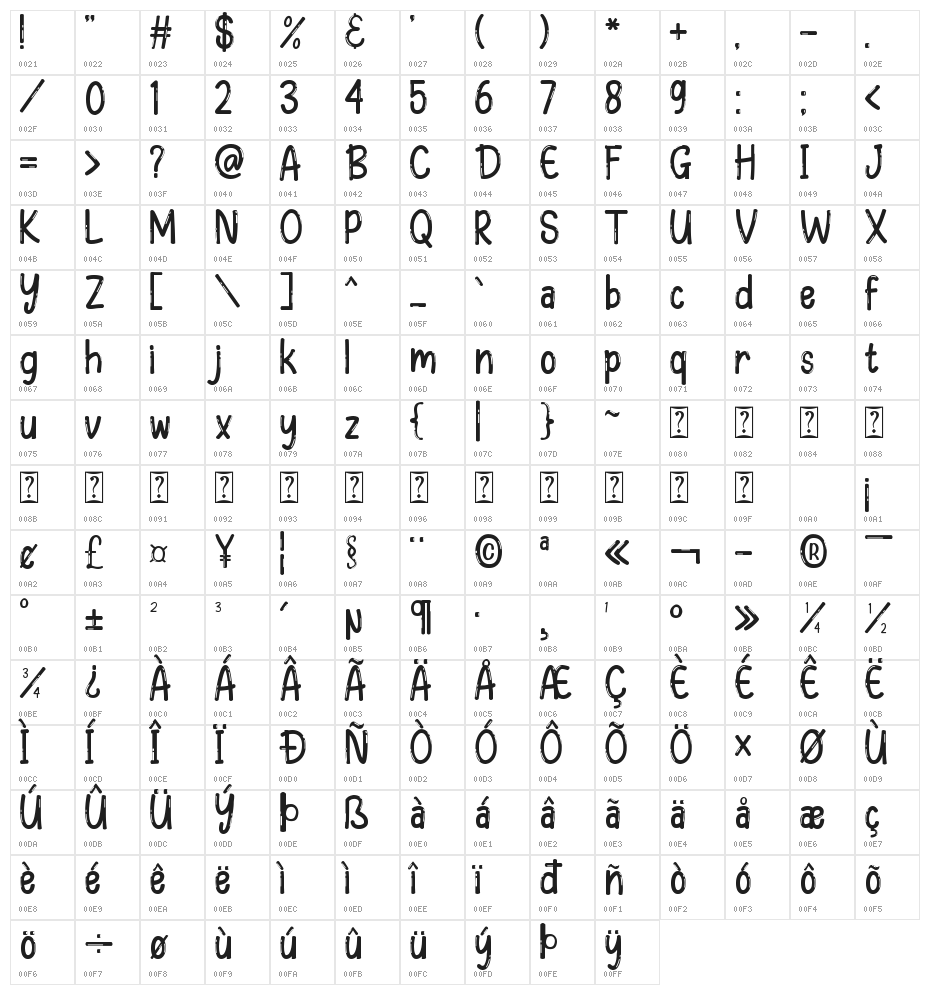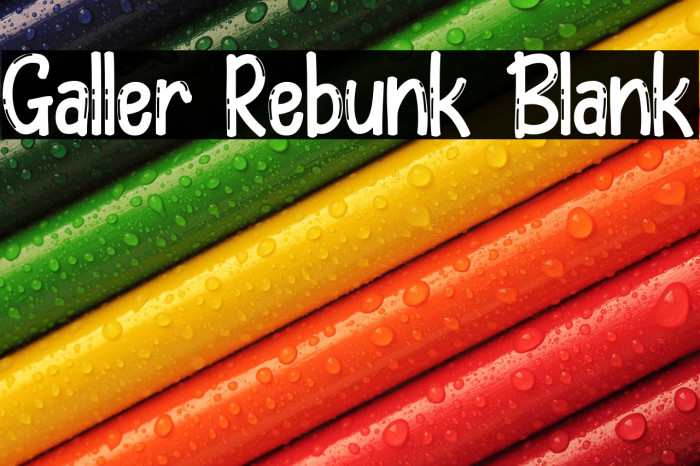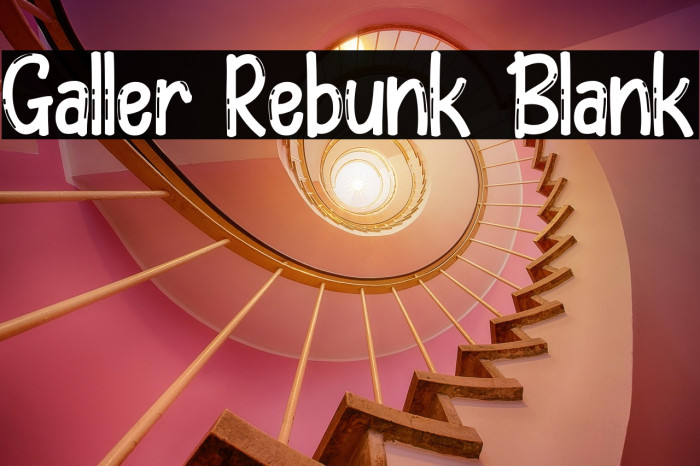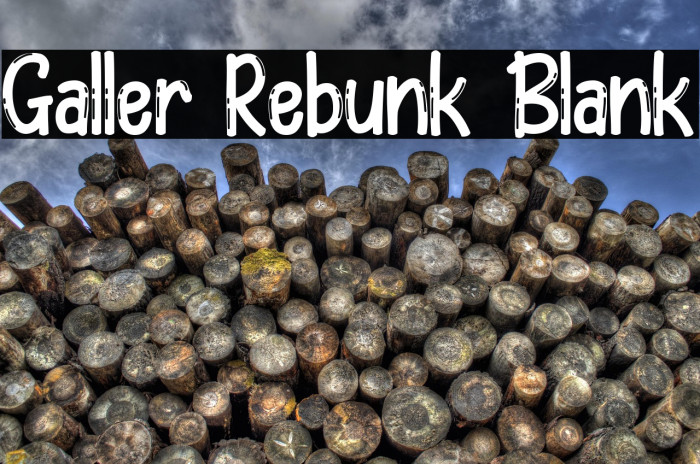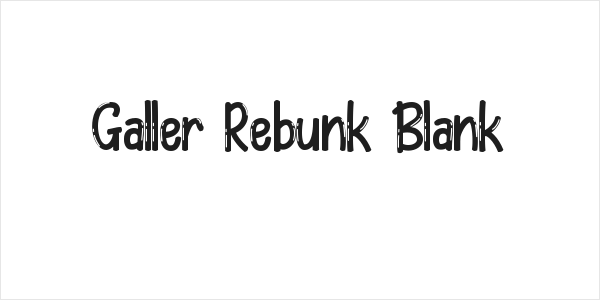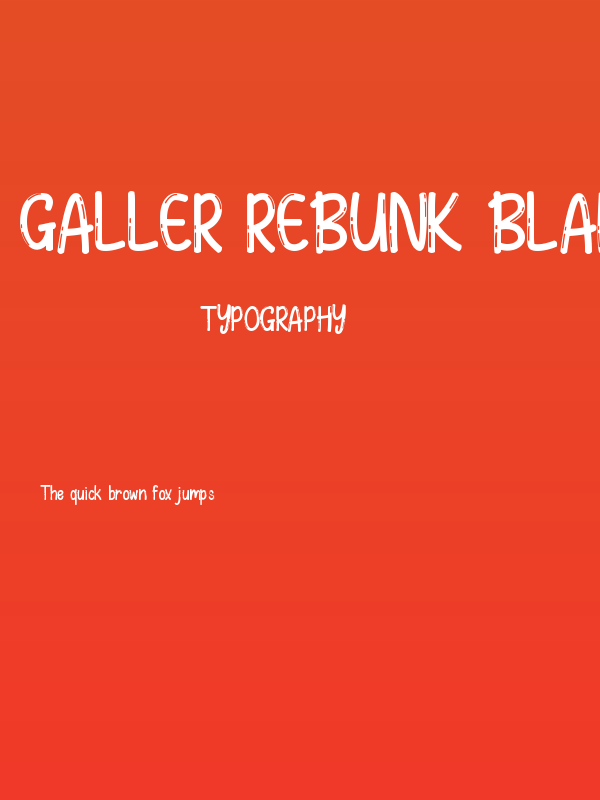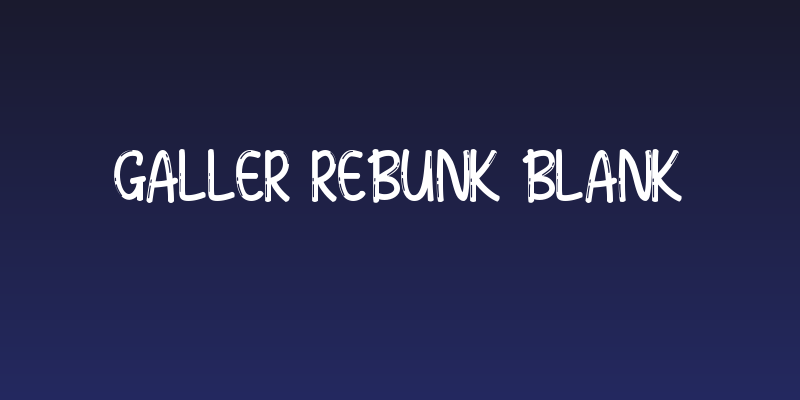
Galler Rebunk Blank Font
Galler Rebunk Blank Description
This font features a playful and whimsical style, characterized by its hand-drawn appearance. The letters are bold and slightly irregular, giving them a casual and friendly vibe. The strokes are thick with a consistent width, and the edges are rounded, enhancing the approachable feel. The uppercase and lowercase letters maintain a uniform height, while the numbers and special characters are designed to match the overall aesthetic. This font's unique style makes it suitable for projects that require a fun and informal touch.
| Proposed Projects | Ideal for children's books, playful branding, greeting cards, and informal posters. |